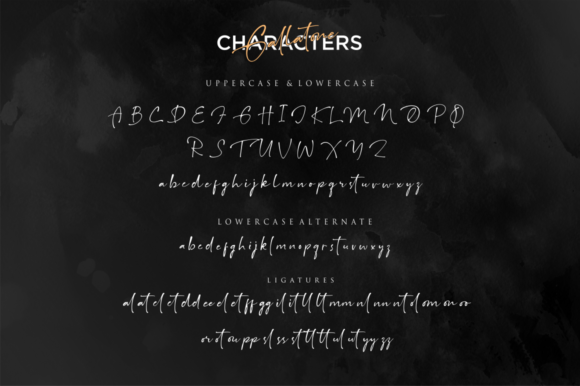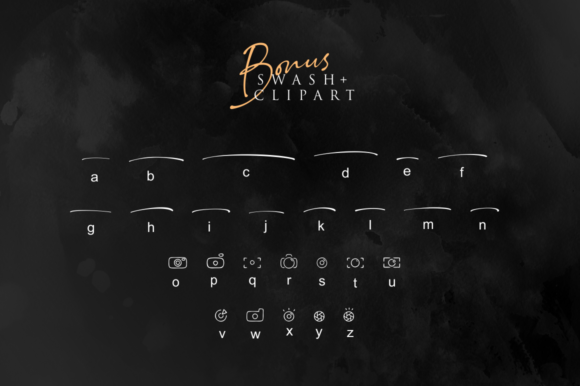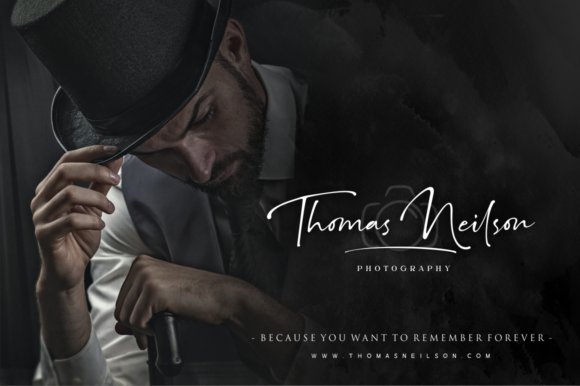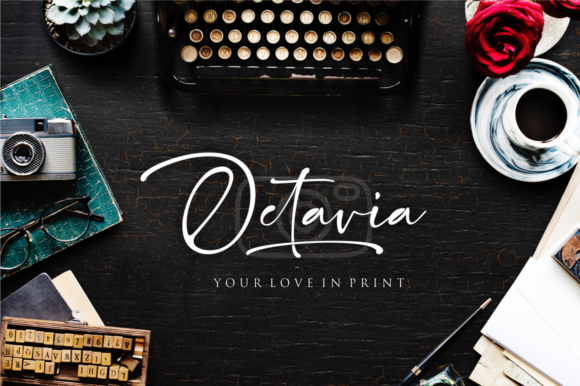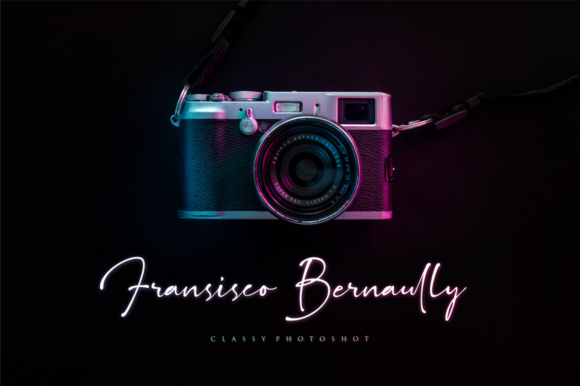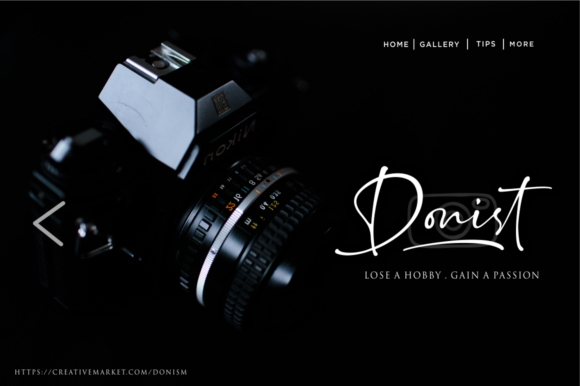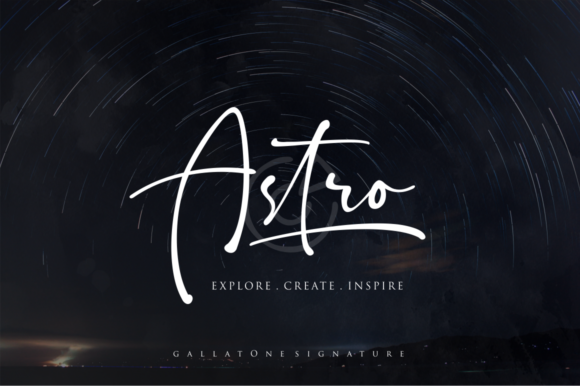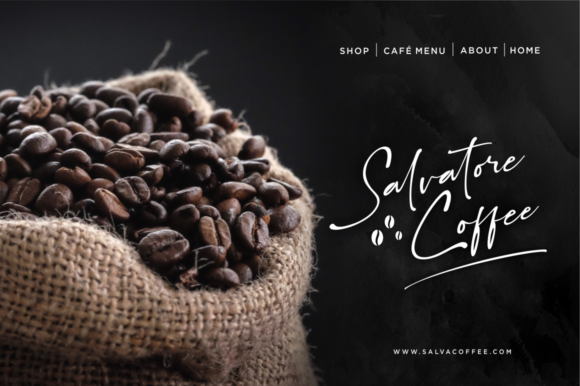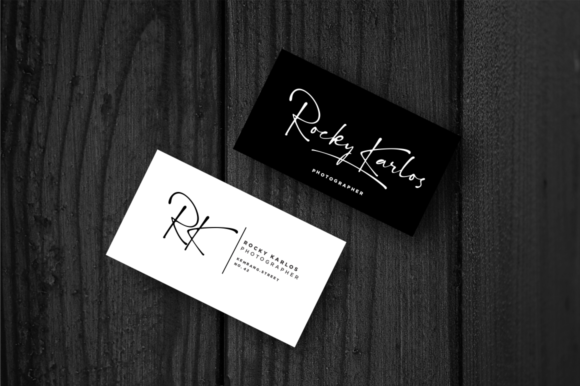
Gallatone Font
About Gallatone Font
The Gallatone is a classic signature font that comes with bonus swashes and photography clipart.
It’s perfect for your personal branding and logos, invitations, stationery, wedding designs, social media posts, advertisements, product packaging, product designs, labels, photography, watermarks, special events and much more!